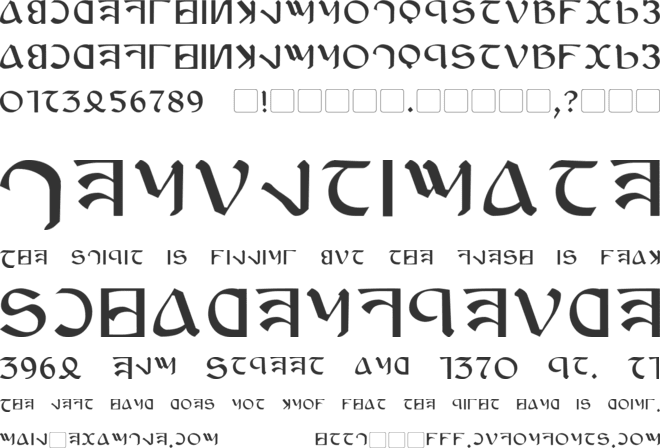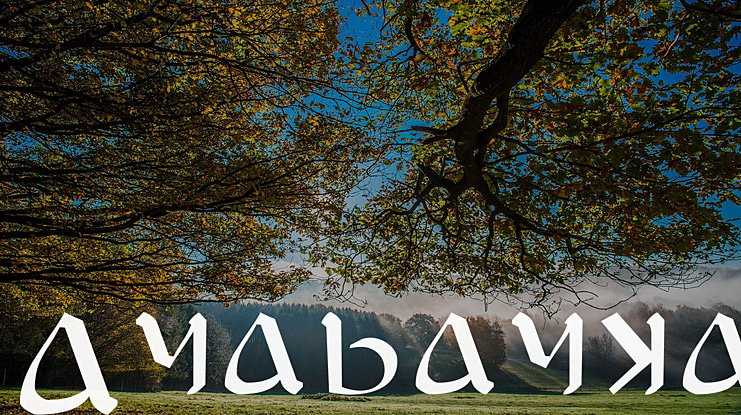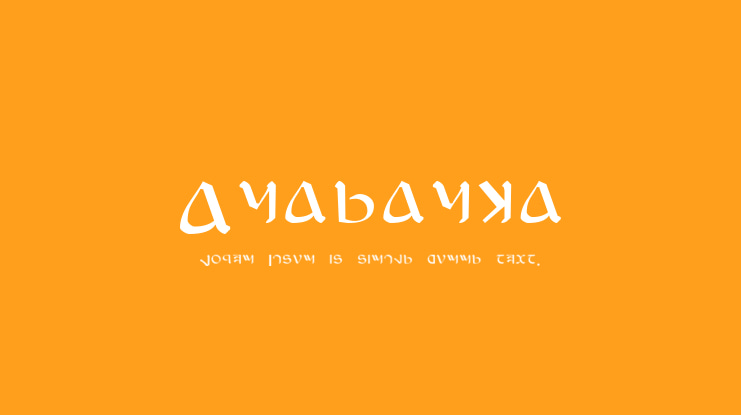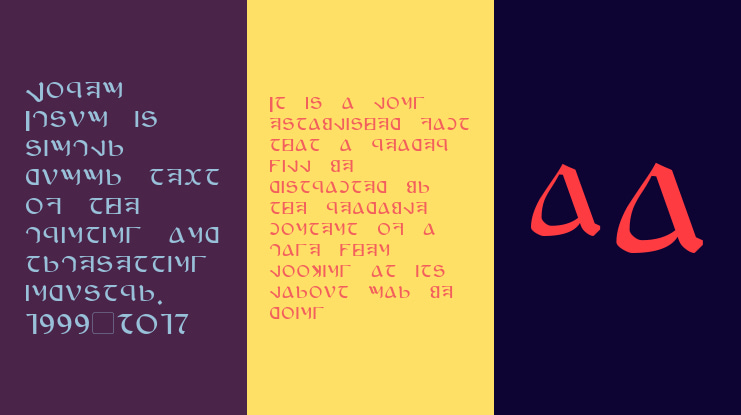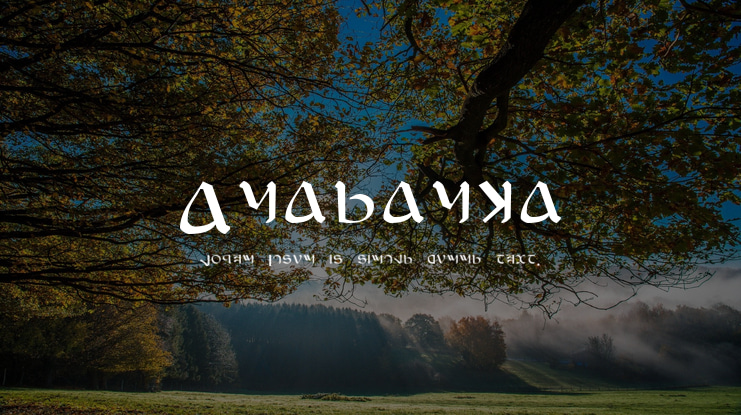
Anayanka Font Family
Anayanka is a custom, Russian-style old-world typeface originally created for Louis Porter Jr. Design’s Neo-Exodus Pathfinder campaign world. This fantasy font includes the language’s full alphabet, numerals and basic punctuation. Includes regular, bold, italic, and bold-italic weights.